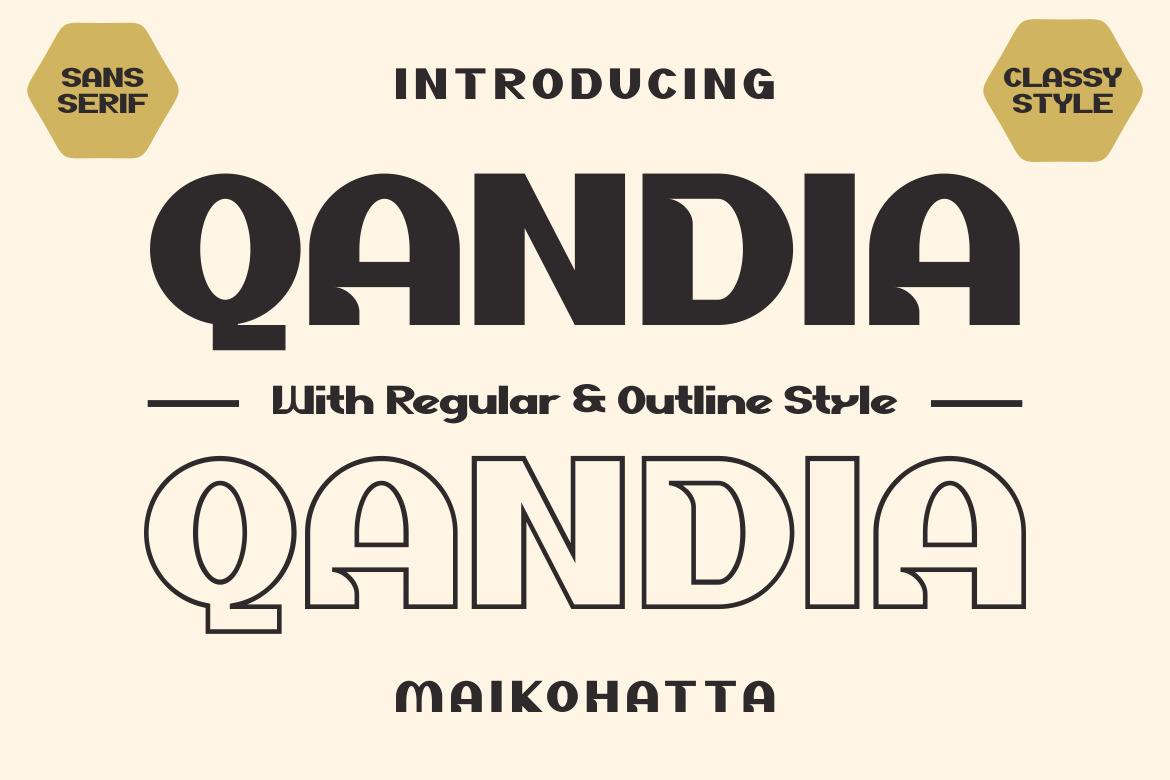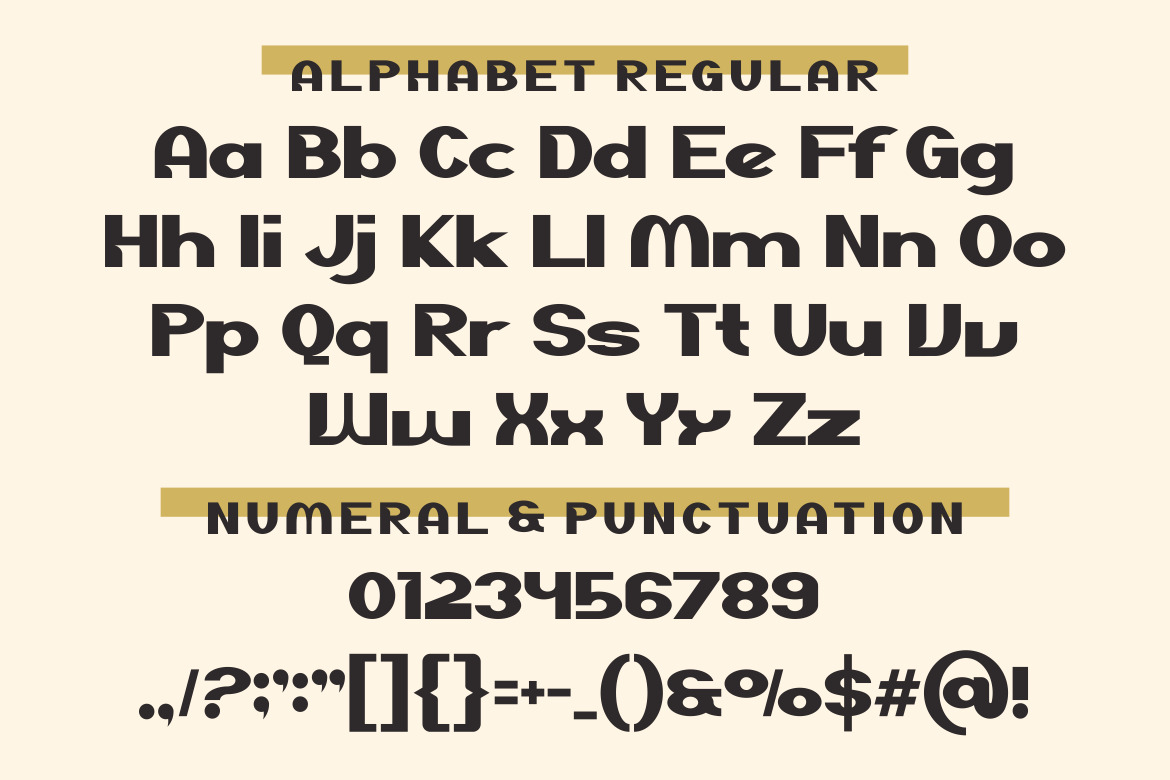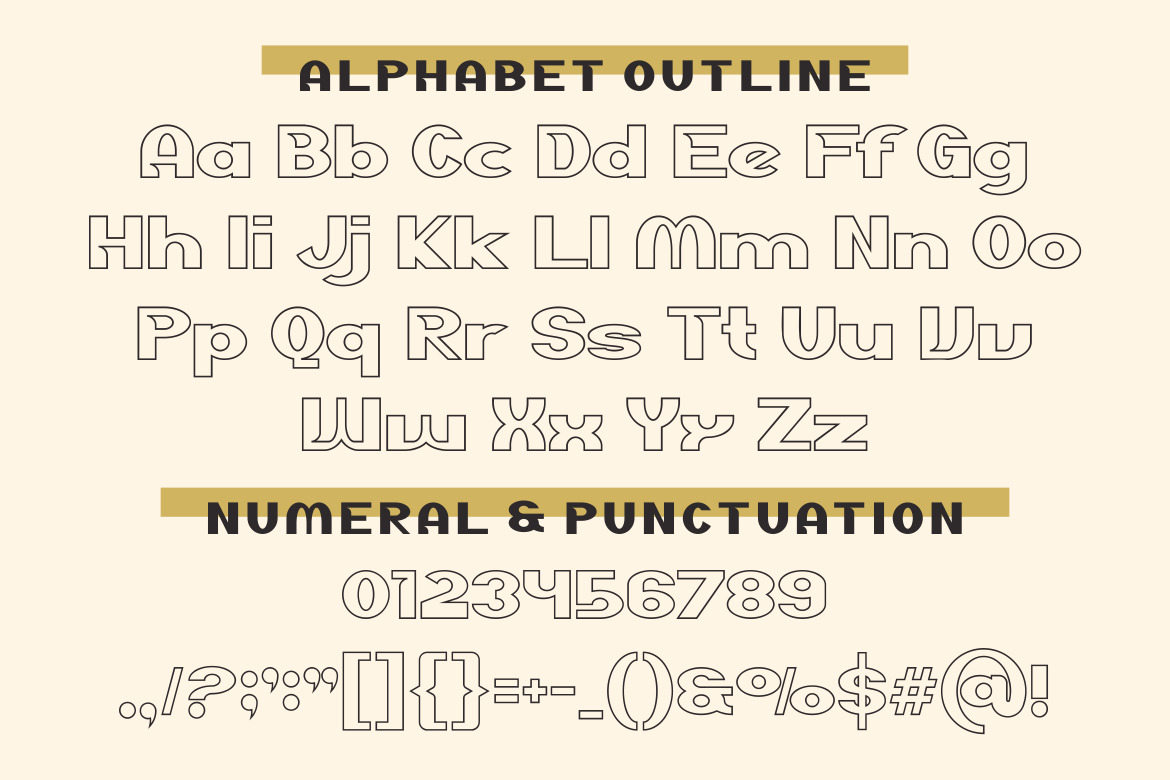
QANDIA Font
Introducing our new product **QANDIA Font**
**QANDIA Font** - Modern Font is a bold and authentic display font. The font is suitable for any branding project like logo, template design, and many more. outstanding in a wide range of contexts.